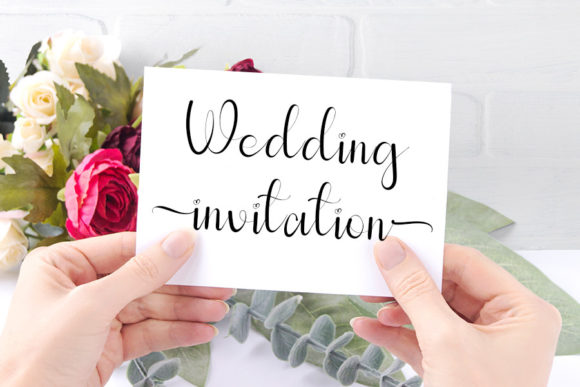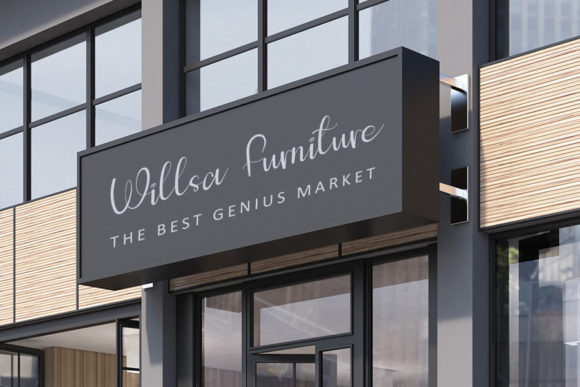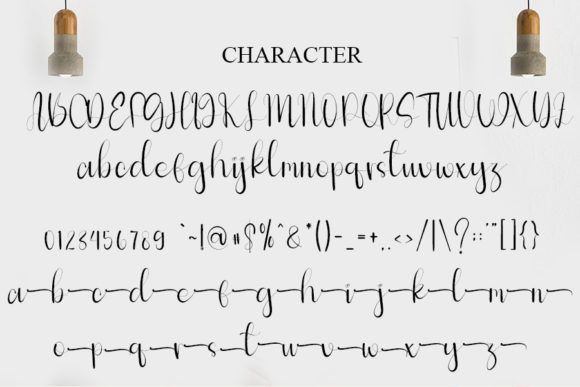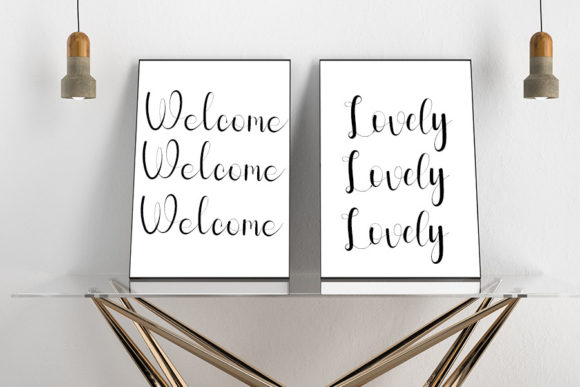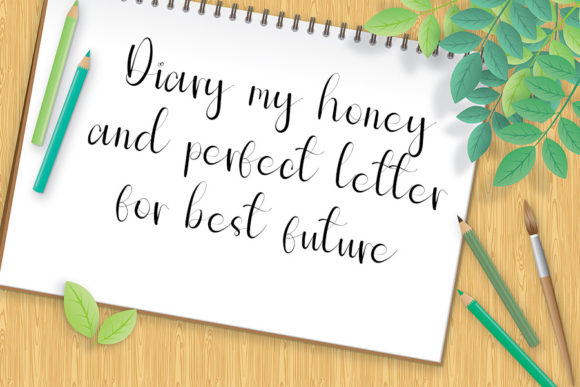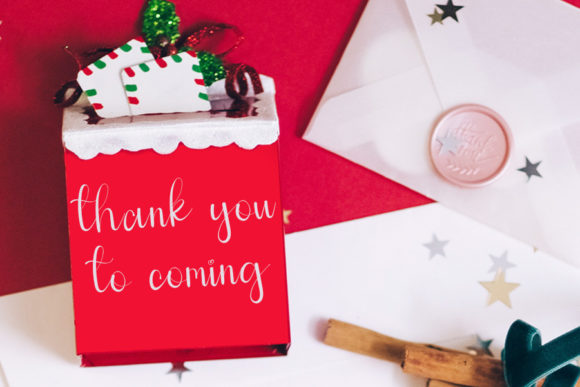
Willsa Font
Willsa is a romantic and sweet calligraphy typeface that adds a delightful and elegant touch to your designs. With its characters dancing along the baseline, this font has a casual yet elegant style that brings a touch of romance and charm.
The flowing and graceful letterforms of Willsa create a sense of movement and beauty. Each character is beautifully crafted, capturing the essence of calligraphy and adding a touch of sophistication to your designs. Whether you’re working on logos, wedding invitations, headings, t-shirts, letterhead, signage, labels, news, posters, badges, or any other creative project, Willsa is a versatile choice.
The PUA encoding of Willsa allows you to access all of the glyphs and swashes with ease. This means you can effortlessly incorporate the special characters and decorative elements into your designs, adding further customization and flair. It opens up a world of design possibilities, allowing you to create unique and personalized compositions.
Embrace the romantic and sweet nature of Willsa and let it elevate your designs with its elegant calligraphy style. Incorporate this font into your projects, and you’ll see how it adds a touch of romance and beauty that captures the attention and hearts of your audience.